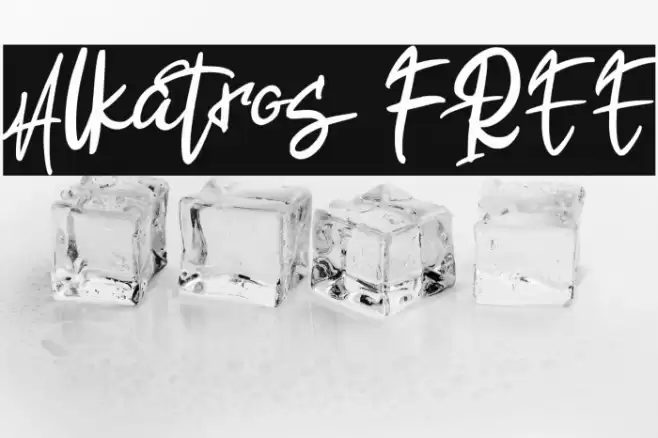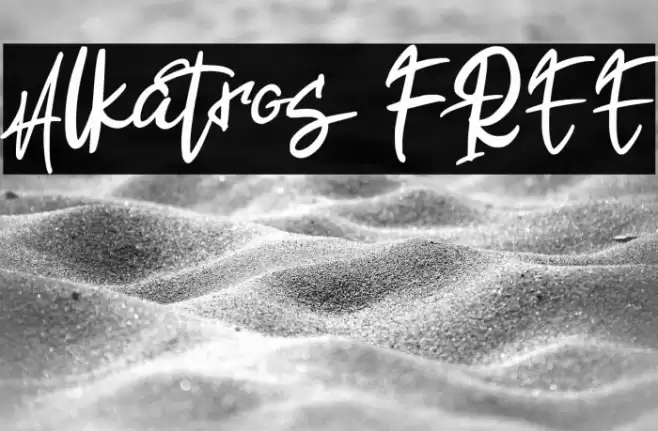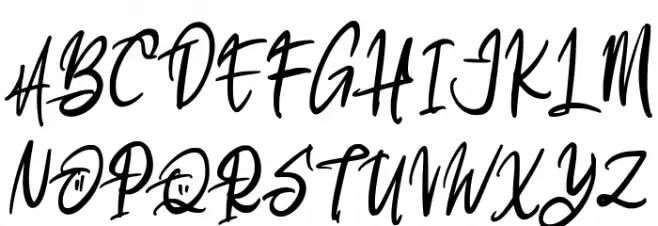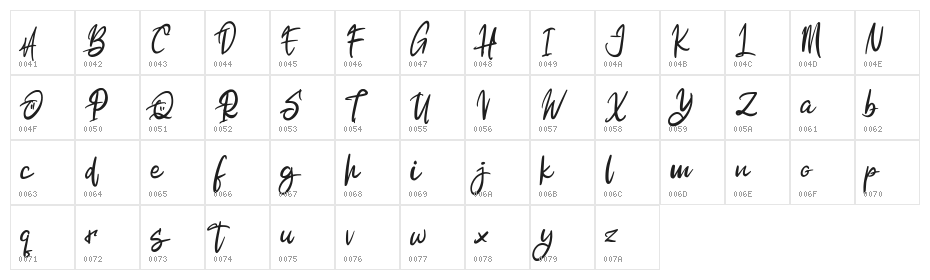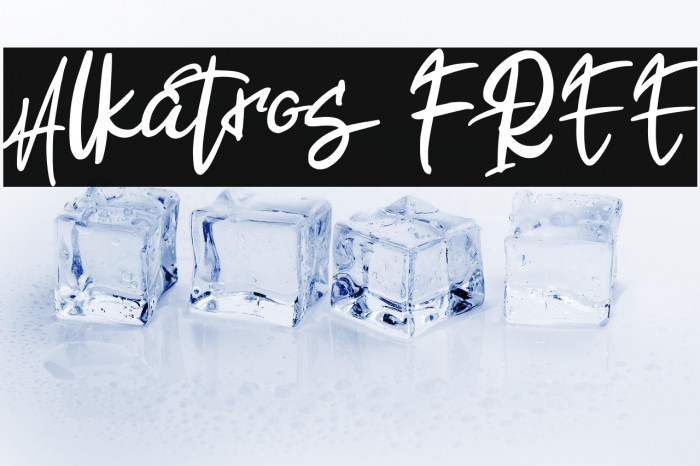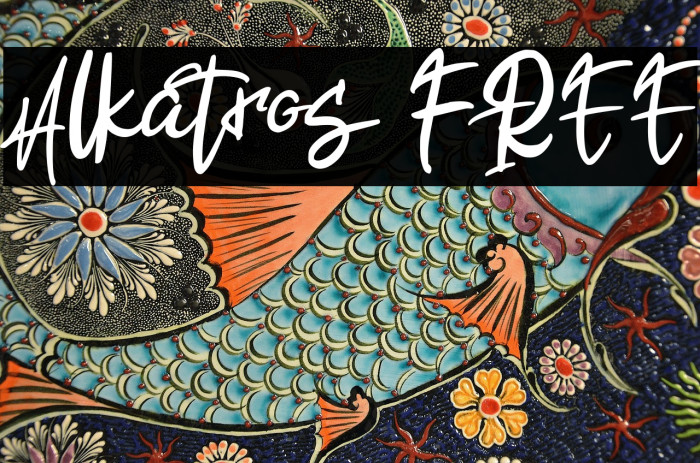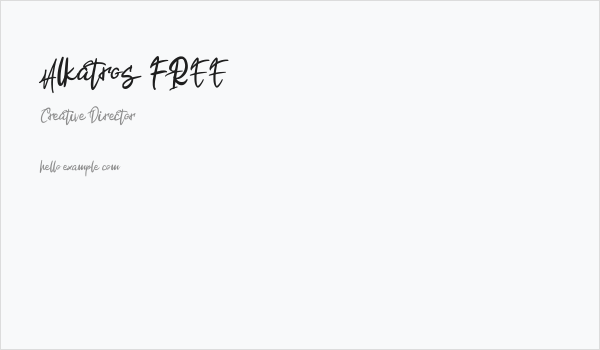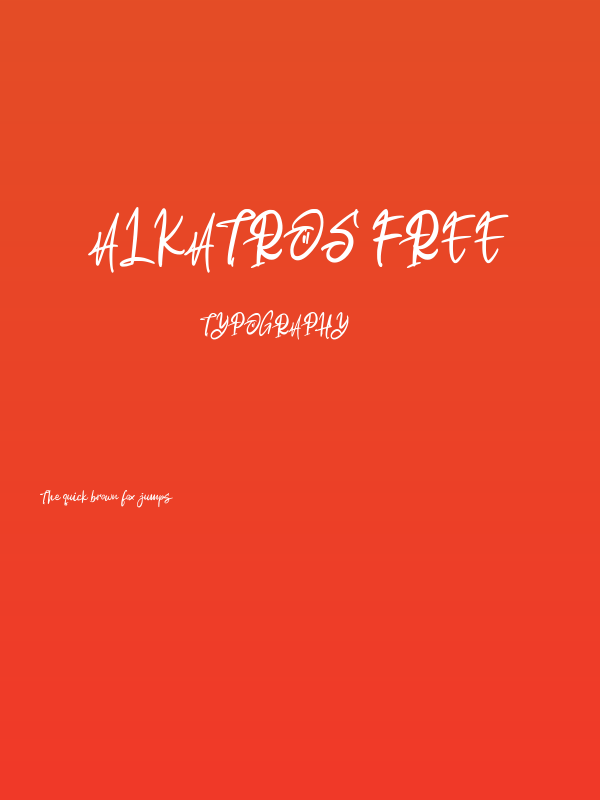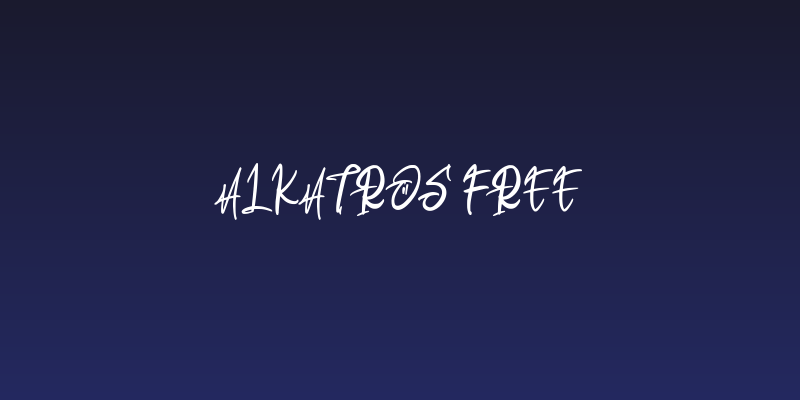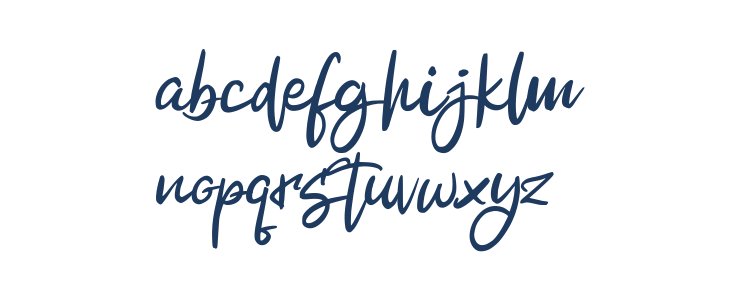
Alkatros FREE Font
Alkatros FREE Description
This font exudes a lively and expressive handwritten style, characterized by its fluid and dynamic strokes. The letters are crafted with a sense of movement, giving it a personal and artistic touch. The uppercase letters are bold and prominent, while the lowercase letters maintain a consistent flow, enhancing readability. The font includes a full set of uppercase and lowercase letters, numbers, and a selection of special characters, making it versatile for various design needs. Its playful yet elegant appearance makes it suitable for creative projects that require a personal touch.
A lively and expressive handwritten font with fluid, dynamic strokes from Regular fonts.
- Proposed Projects: Ideal for greeting cards, invitations, branding, and social media graphics.
- Use Case: Logos, Headlines, Invitations